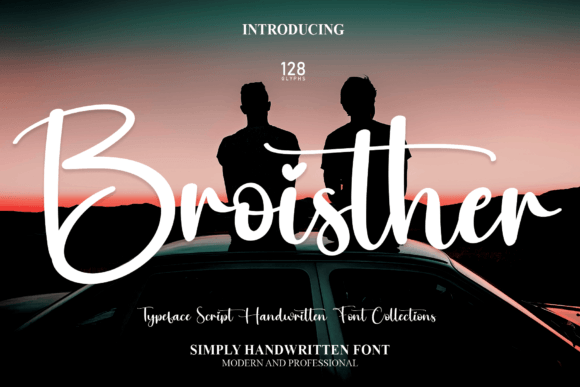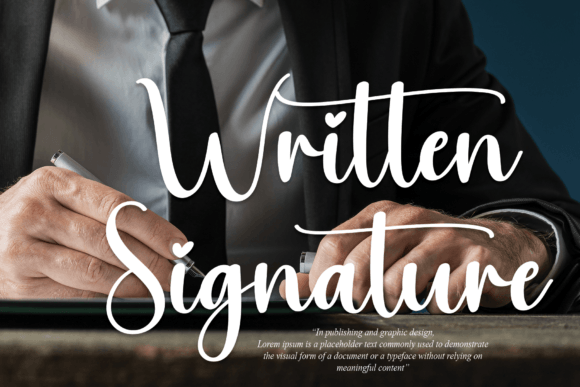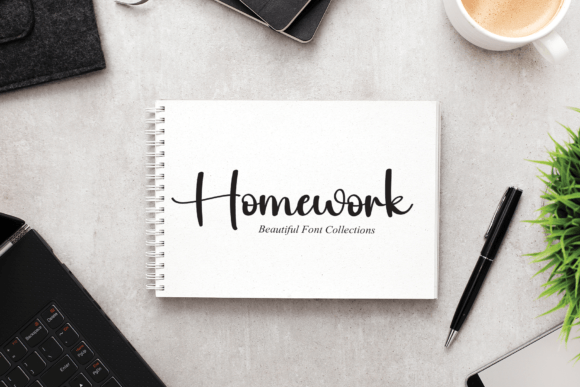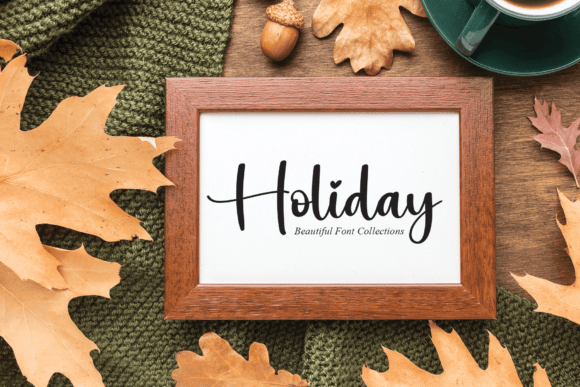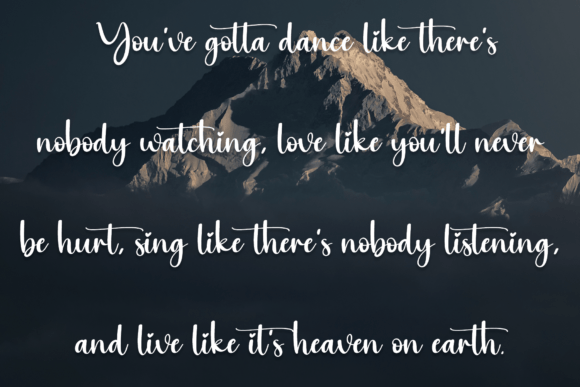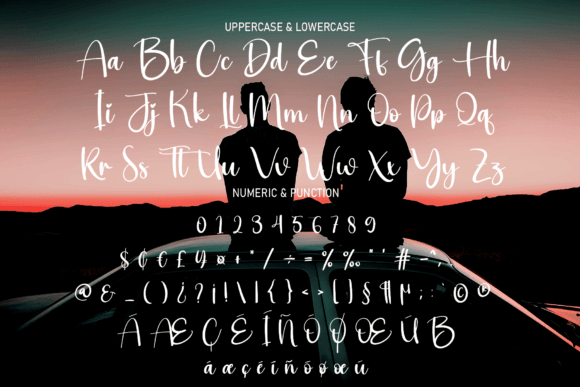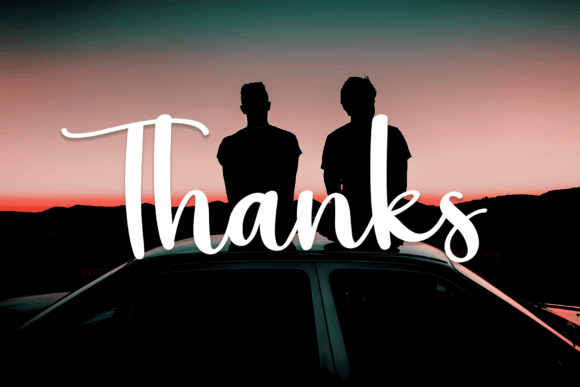
Broisther Font
About Broisther Font
Introducing Broisther, a magical handwritten font meticulously crafted to infuse elegance into your designs. Whether you’re seeking fonts for Instagram posts or calligraphy scripts for DIY projects, Broisther transforms any creative idea into a true piece of art. This font is designed to add a touch of enchantment and sophistication to a variety of design applications.
Broisther’s magical handwritten style brings a sense of whimsy and elegance to your text. The carefully crafted strokes create a unique and artistic appearance, making it suitable for a wide range of creative projects.
Imagine using Broisther for Instagram posts where its magical handwritten font enhances the visual appeal of your messages. In calligraphy scripts for DIY projects, this font adds a touch of sophistication, turning your creations into works of art.
For any design that requires a magical and elegant touch, Broisther is ready to elevate your projects. Its versatile style adapts seamlessly to different contexts, making it suitable for branding, social media, invitations, and various other creative endeavors.
Whether you’re working on digital or print materials, Broisther is designed to be the magical handwritten font that transforms your ideas into pieces of art. Its ability to add enchantment and sophistication makes it a valuable tool for a range of creative applications.
In conclusion, Broisther is more than just a font; it’s a design tool that invites you to infuse your projects with a touch of magic and elegance. Whether you’re working on Instagram posts, DIY projects, or other designs, Broisther is prepared to be the magical handwritten font that enhances the overall beauty and enchantment of your creative work.